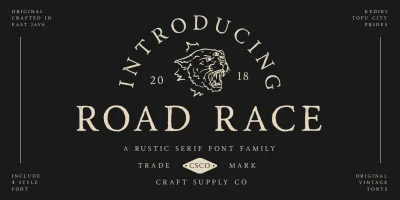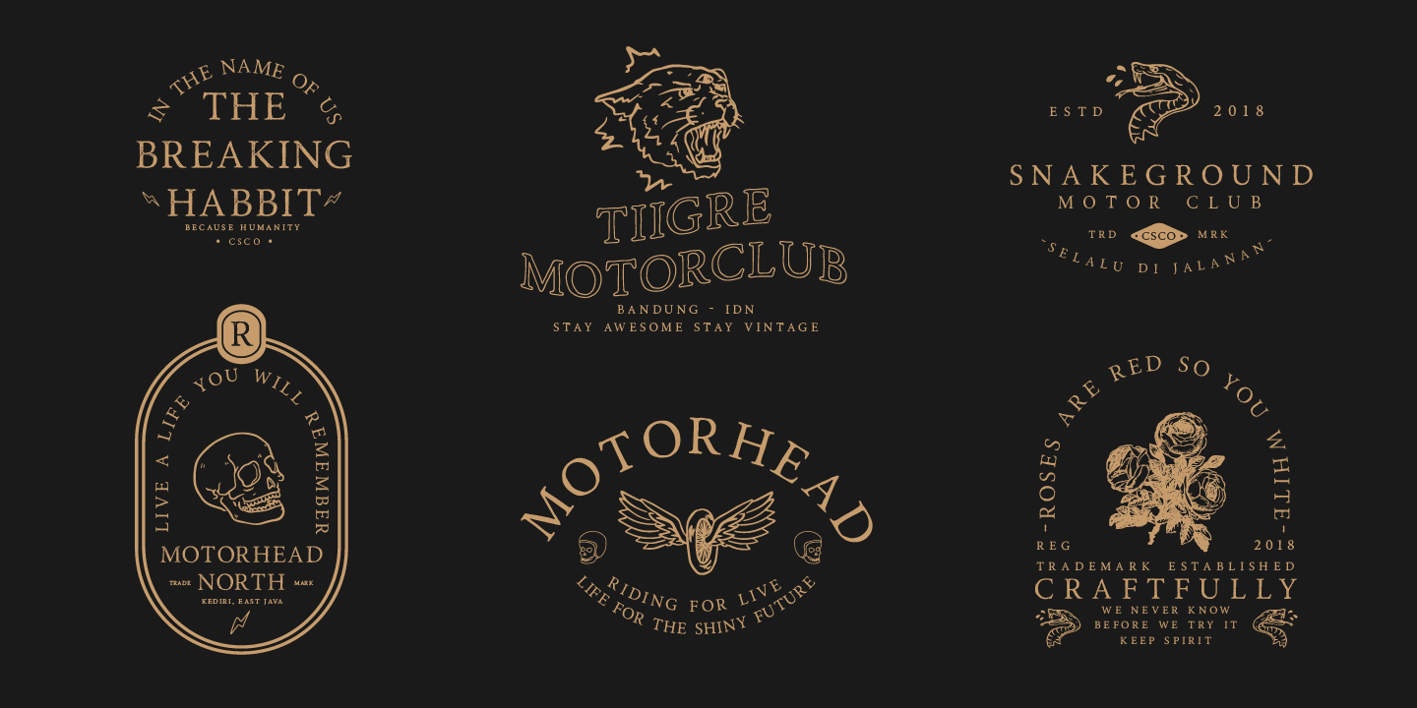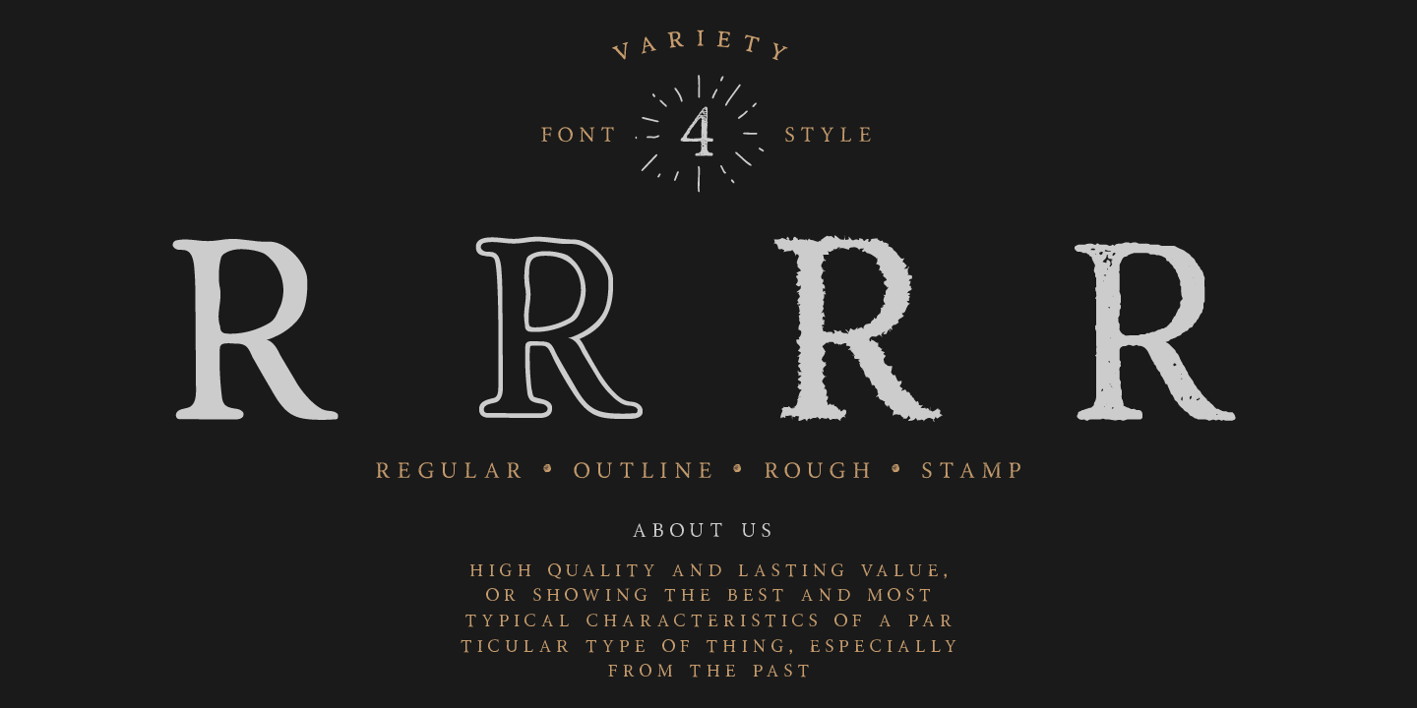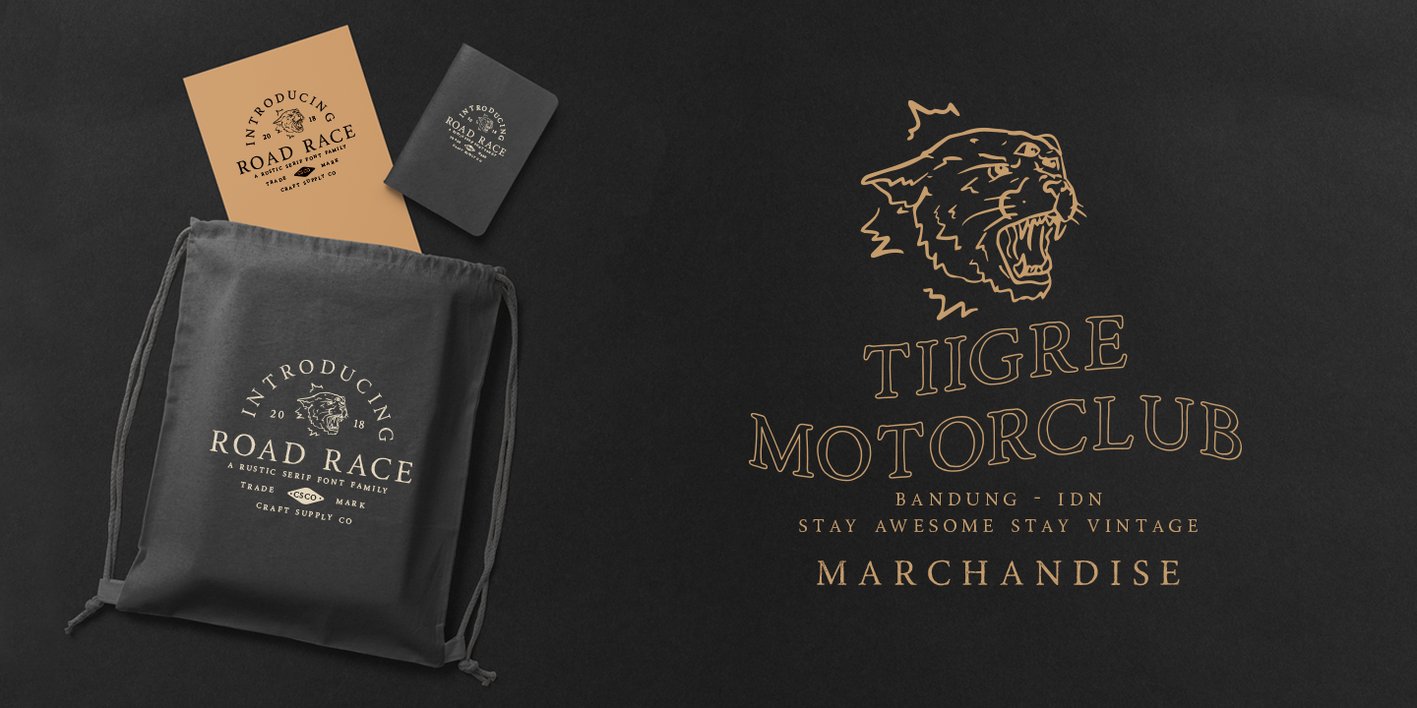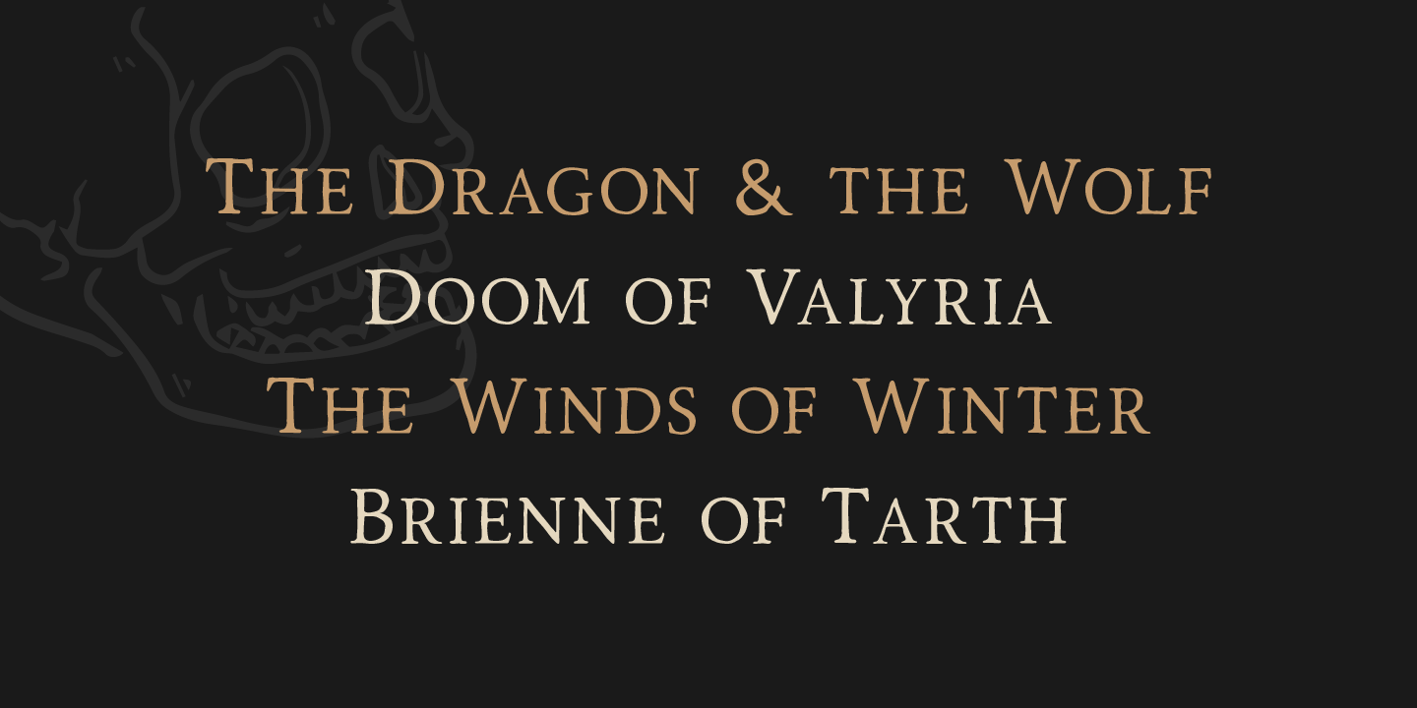
Typography shapes perception at a subconscious level. Road Race leverages versatility across print and screen contexts to make every composition feel considered. The typeface brings a versatile sensibility to a broad range of creative disciplines, with optical balance across all weights that holds up whether the work is print-first or screen-first.
In practice, Road Race proves particularly effective for editorial layouts, web design, signage systems, annual reports, product labels. Designers reaching for it find that the type decisions feel resolved rather than laboured — a useful quality when client timelines are tight.
The range of applications extends to social media graphics, logo design, advertising campaigns, brand identity systems. That breadth is deliberate: the proportions and spacing were stress-tested across a wide range of mock briefs before the typeface was finalised.
At smaller sizes the design retains its character without becoming cluttered. This resilience across scales makes Road Race equally suitable for a business card and a billboard — a useful property when assets must scale across a campaign.
Freelance designers across print and digital disciplines find Road Race a reliable choice for projects that demand both personality and restraint. The design avoids the self-conscious quirkiness that dates quickly, settling instead for considered distinctiveness that holds up over time.